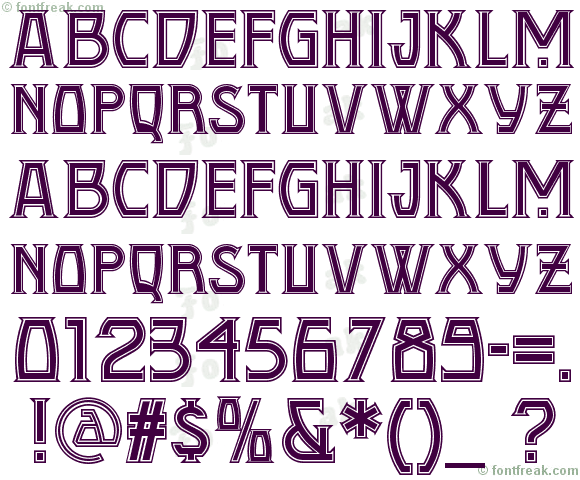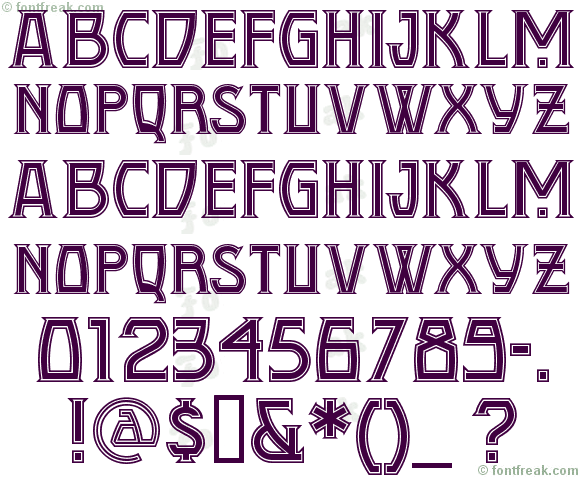
Conquistadorman NF
ConquistadormanNF
Conquistadorman NF is a striking display font designed by Nick Curtis, characterized by its bold, decorative style. This font falls into the category of display typography, making it ideal for capturing attention in various design projects. Its visual characteristics include substantial stroke weight and a unique contrast that creates a dynamic look. The letterforms feature sharp angles and a distinctive, stylized appearance that adds a layer of personality to any text. The spacing is well-balanced, ensuring readability while maintaining a strong visual impact, making it perfect for eye-catching headlines and titles.
The Conquistadorman NF font free download is particularly well-suited for specific use cases. It works wonderfully for movie posters, where its dramatic flair can convey excitement and intrigue. Additionally, this font is an excellent choice for themed events, such as Renaissance fairs or medieval festivals, where a historical touch is desired. Restaurant menus that want to evoke a sense of adventure or uniqueness can also benefit from the font's distinctive style. Furthermore, graphic designers may find it useful for branding projects that require a memorable and bold statement, appealing to small business owners looking to stand out in competitive markets.
Targeted toward graphic designers, small business owners, and content creators, Conquistadorman NF is a versatile typeface that caters to those seeking a unique visual identity. Its standout features and distinctive character make it a compelling choice for any project that demands attention. The font's ability to blend form and function ensures it remains a valuable asset for anyone looking to create impactful designs.